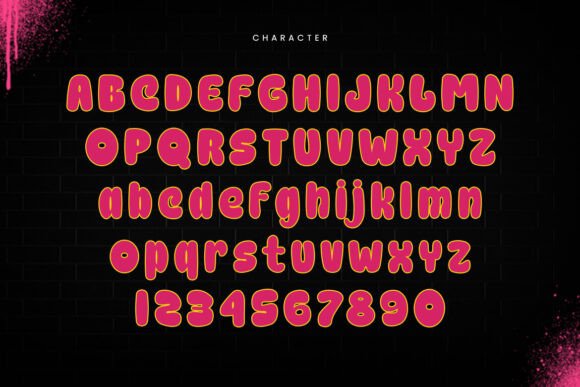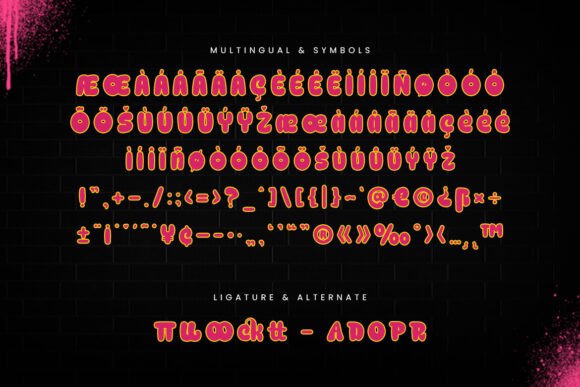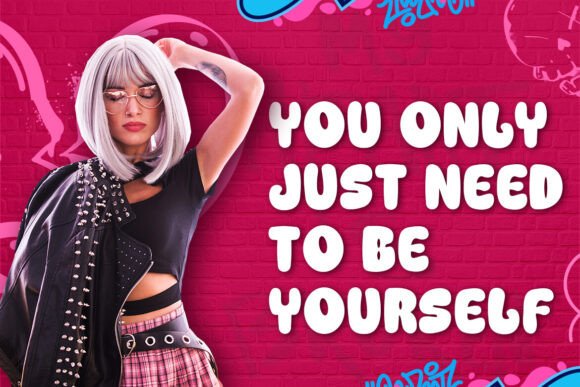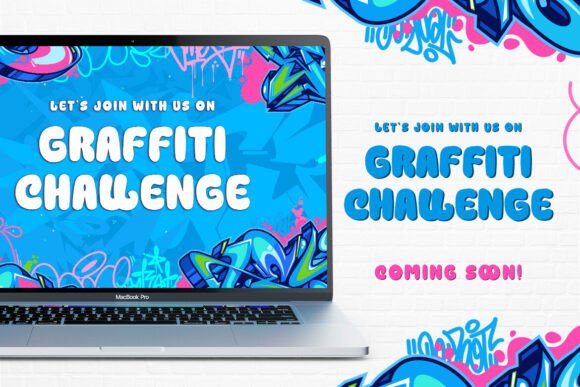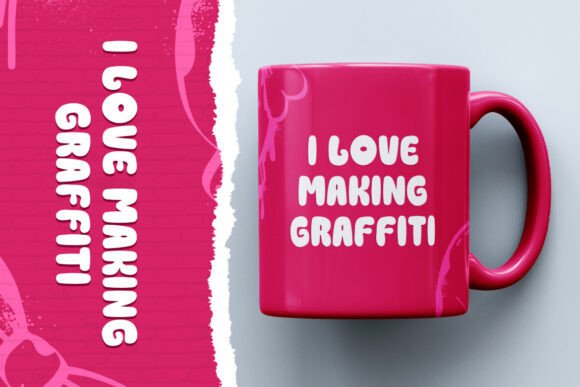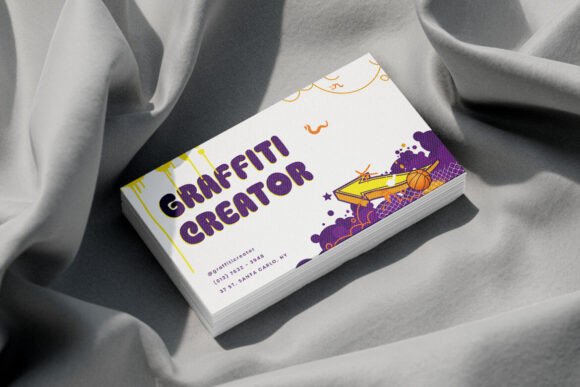
The Urban Edge: Unleashing the Power of Graity Font
I’ll never forget the design project that pushed me to discover Graity Font. I was working on a bold poster for a streetwear brand, and my usual go-to fonts just weren’t cutting it. The client wanted something that screamed urban culture, something raw and unapologetic. That’s when I stumbled upon Graity, and it was love at first sight! 💥
Graity is a full-bodied, daring graffiti-inspired display font that captures the unrefined vigor and inventiveness of spontaneous street art. Its striking, aerosol-hued characters and fluid design inject an unparalleled authenticity of urban culture into every anticipated project.
- ✅ Graity’s bold, eye-catching design makes it perfect for grabbing attention.
- ✅ The font’s fluidity and dynamic feel bring a sense of energy and movement to any design.
- ✅ Graity’s versatility makes it suitable for a wide range of projects, from posters and album covers to streetwear logos and event publicity.
- ⚠️ Graity’s bold design can be overwhelming if not used thoughtfully – be mindful of legibility and balance.
- ⚠️ Some of the font’s more intricate details might not display well at smaller sizes.
The Designer’s Inspiration: A Backstory
Graity’s designer was inspired by the raw energy and creativity of street art. Growing up in urban environments, they were fascinated by the way graffiti could transform blank walls into vibrant works of art. With Graity, they aimed to capture that same spirit and inject it into the world of typography.
Q: What type of projects is Graity best suited for?
A: Graity is perfect for projects that require a bold, urban edge, such as posters, album covers, streetwear logos, and event publicity.
A: Absolutely! Graity is perfect for personal projects that require a bold, urban touch, such as DIY zines, art journals, or social media graphics.